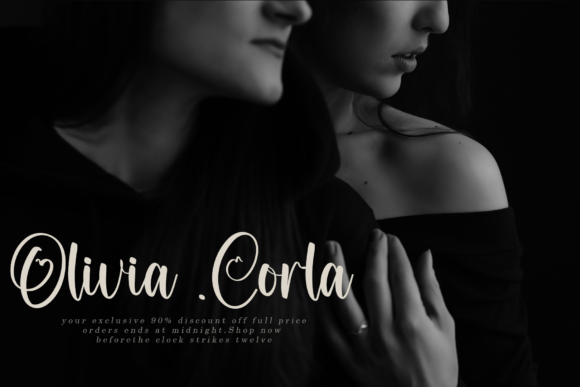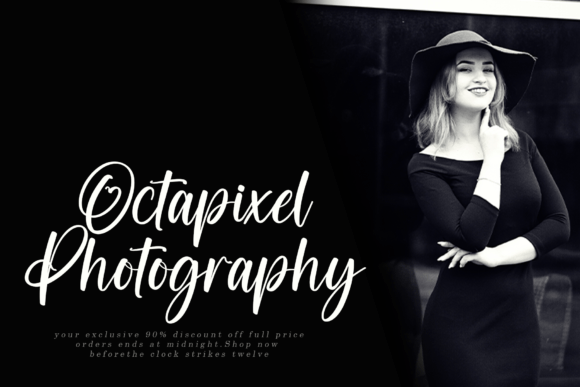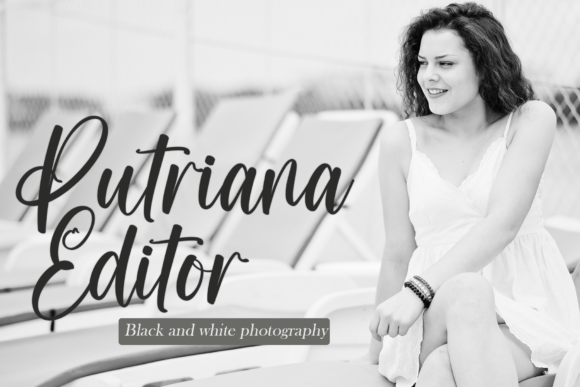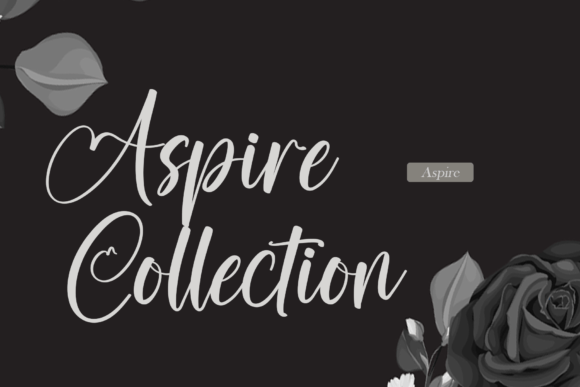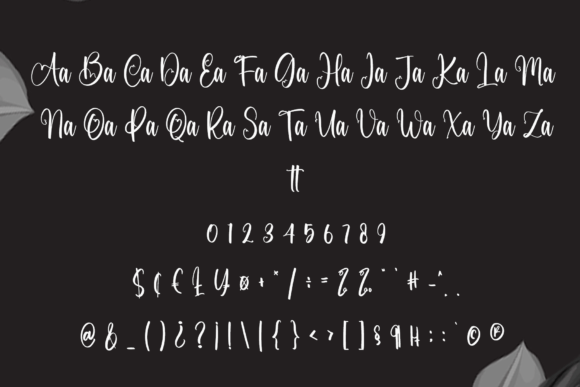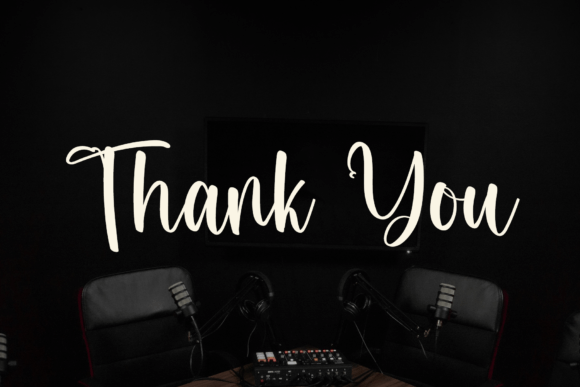
The Aspire Font: Elevating Your Designs with Elegance
Have you ever been in the middle of a design project, and suddenly, you realize that it’s missing that special something? I recall working on a luxury branding project for a high-end jewelry client, and no matter how hard I tried, the design just felt flat. That’s when I discovered the Aspire font, a sweet and beautiful handwritten font that features characters dancing along the baseline. It was like a spark of magic had been added to my design!
A Personal Review of Aspire Font
• ✨ The elegant, flowing script that adds a touch of luxury to any design
• ✅ The unique character placement that creates a sense of movement and energy
• 💫 The versatility of the font, which works well for both headings and body text
• 🎨 The range of OpenType features, including glyphs and stylistic alternates, that allow for creative experimentation
While Aspire font is an excellent choice for many design projects, there are a few things to keep in mind:
• ⚠️ The font may not be suitable for very small text sizes, as some details may get lost
• 🤔 Some characters, like the lowercase “g” and “y”, have a slightly different design that may take some getting used to
The Designer Inspiration Behind Aspire Font
Aspire font was designed with the intention of creating a luxurious, high-end script font that would add a touch of elegance to any design. The designer, inspired by the flowing scripts of luxury brands, aimed to create a font that would evoke a sense of sophistication and refinement.
Q: What is the best way to use Aspire font in my design?
A: Aspire font works well as a heading font, but it can also be used for body text. Experiment with different font sizes and styles to find the best fit for your design.